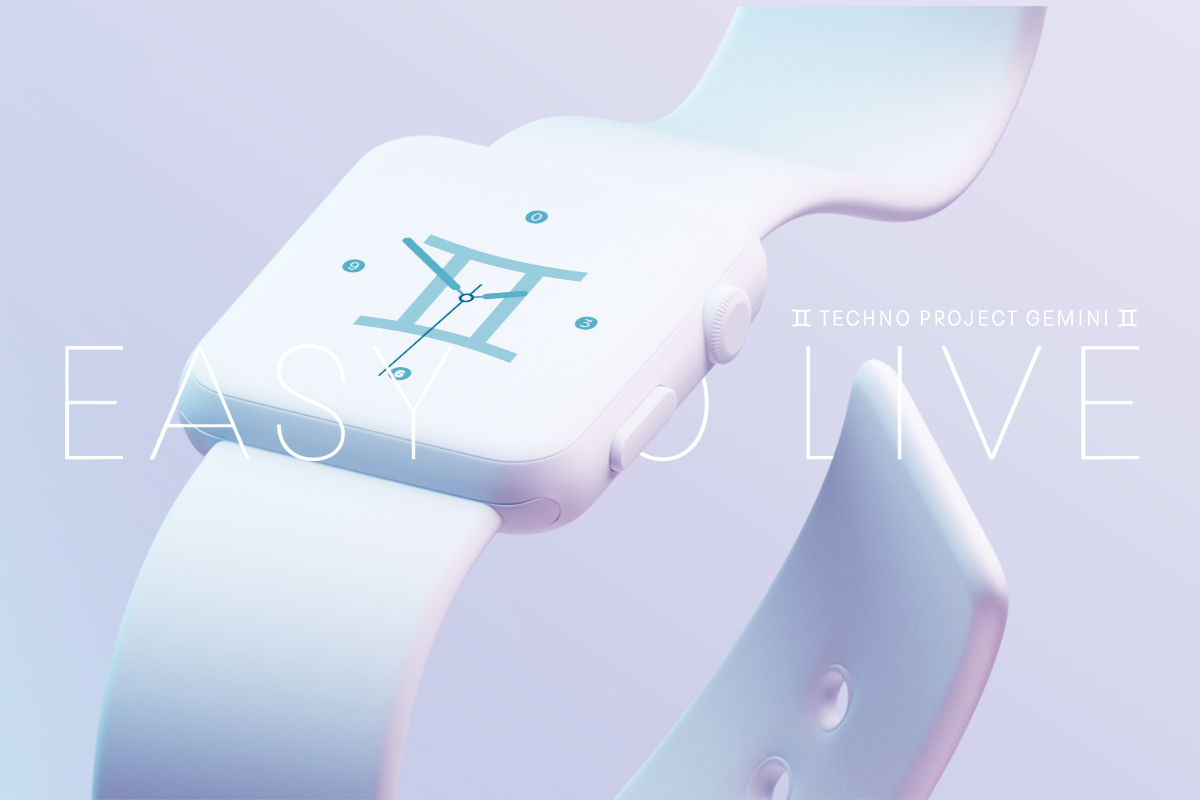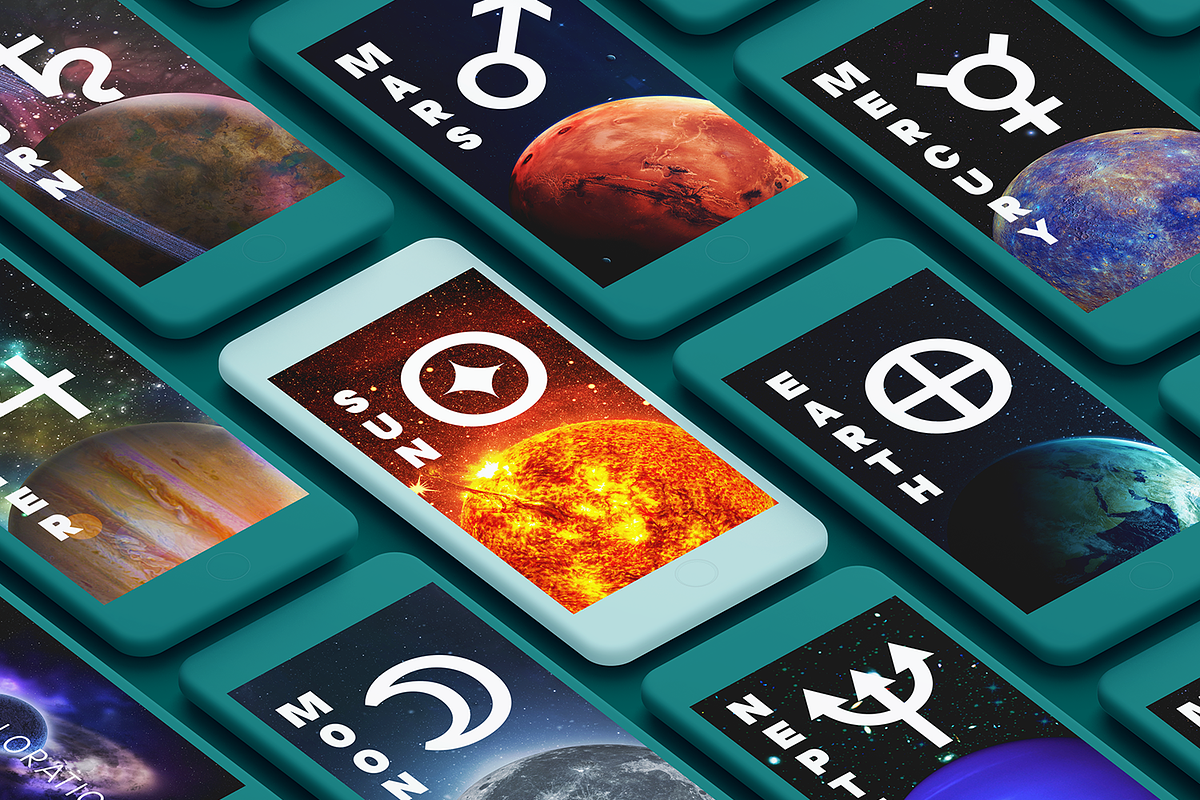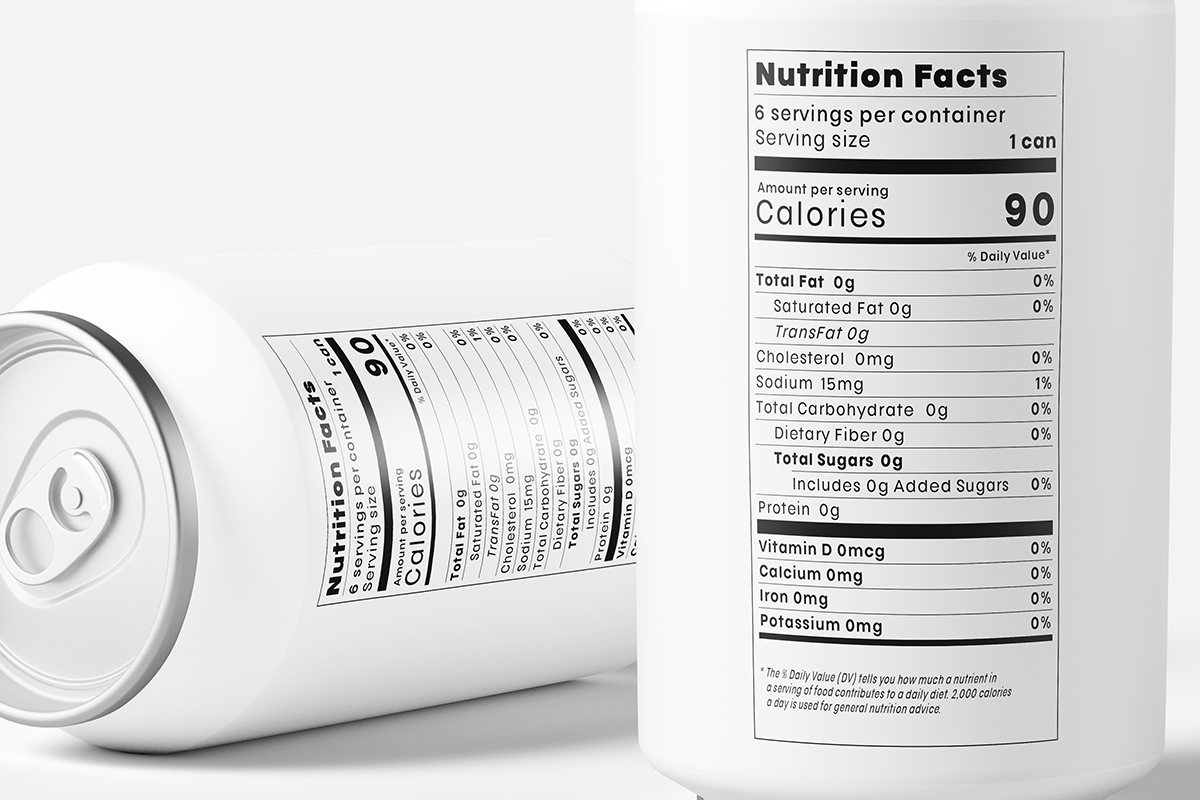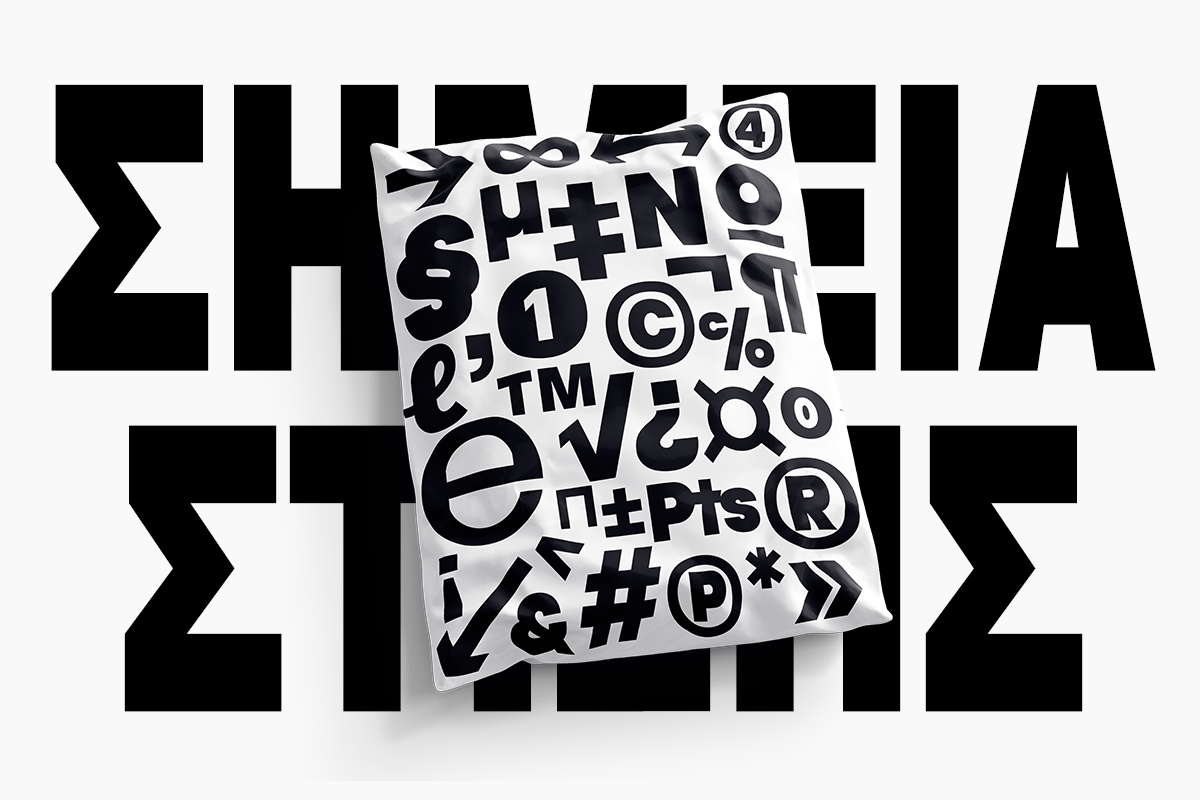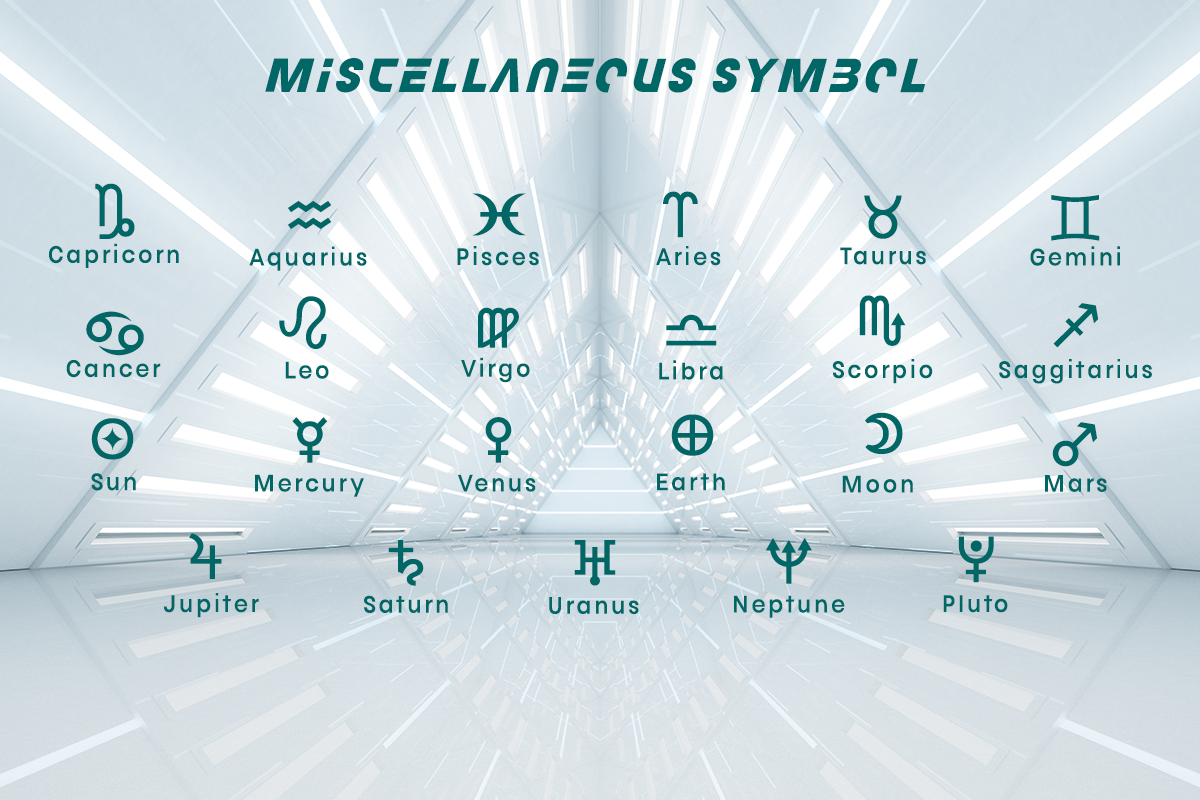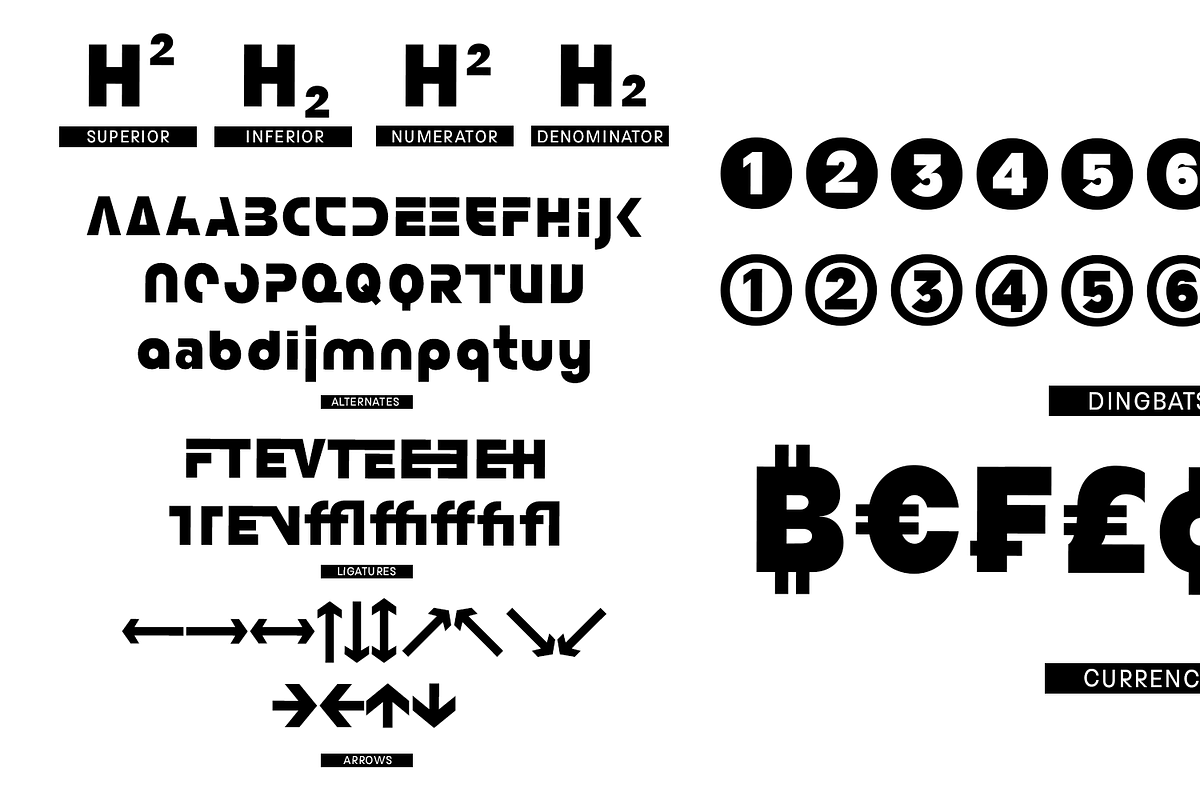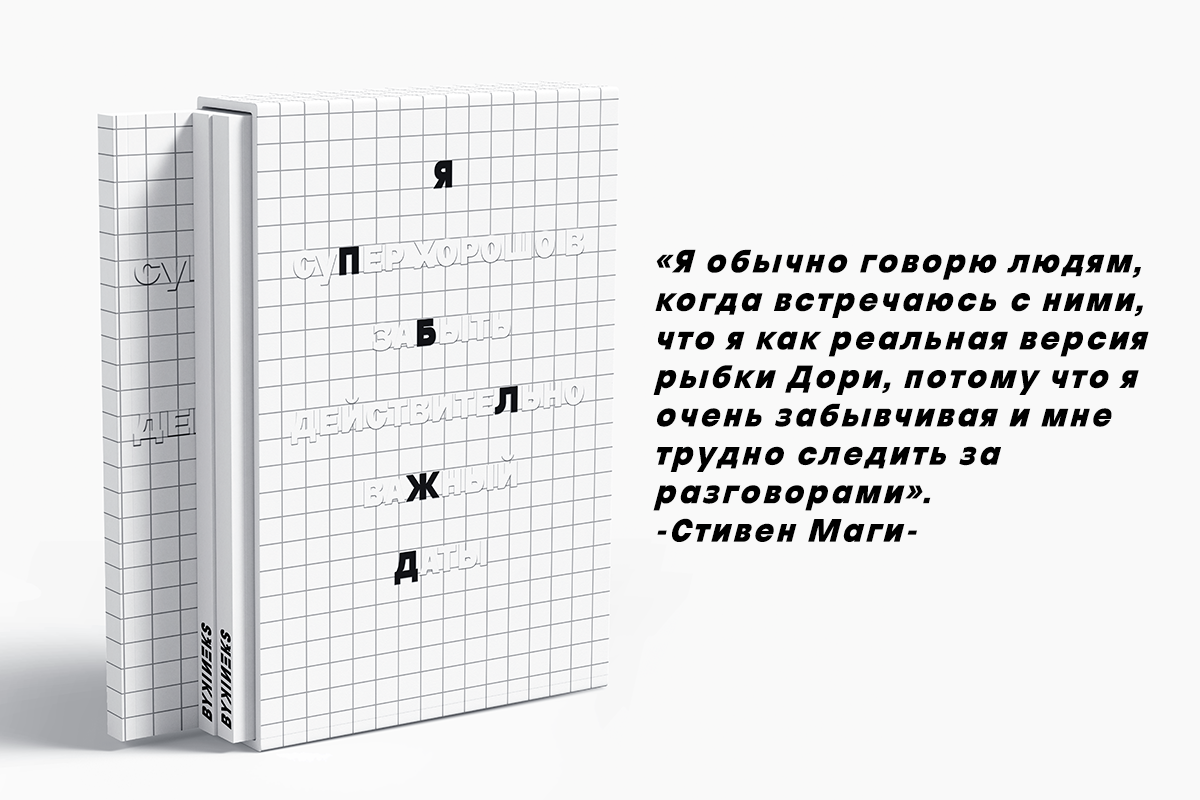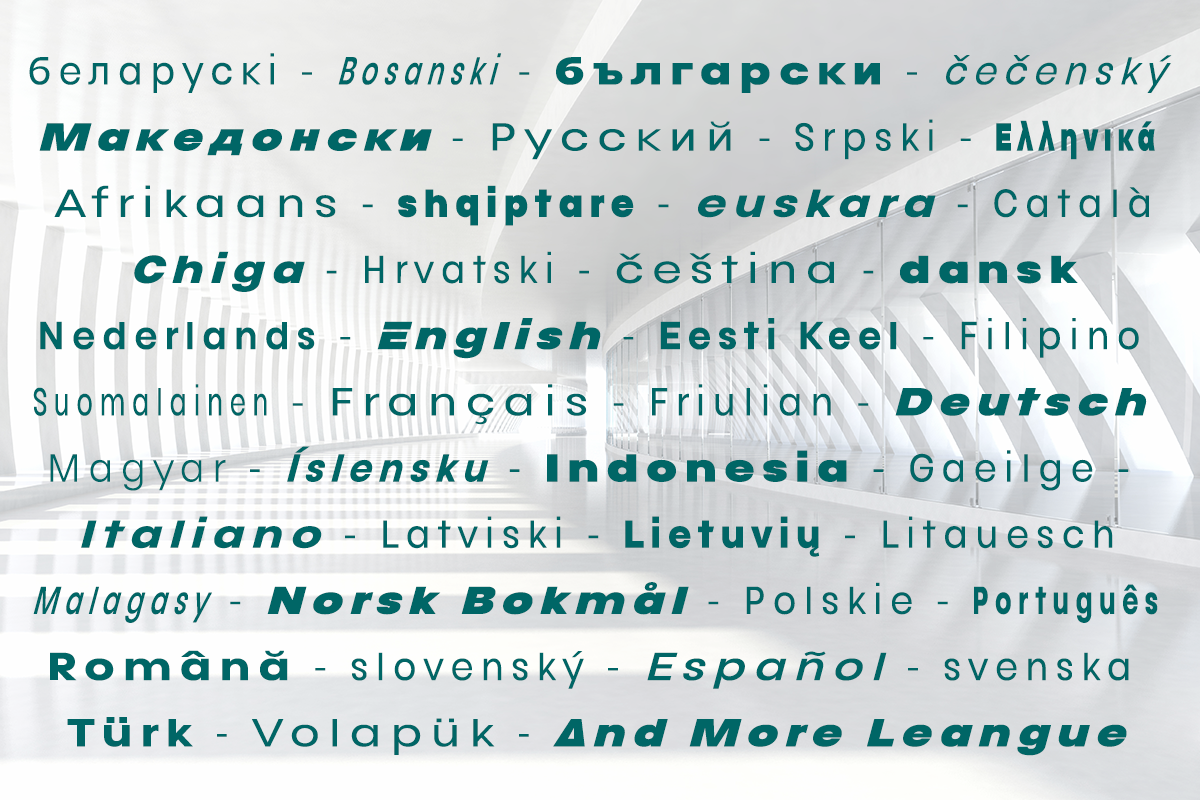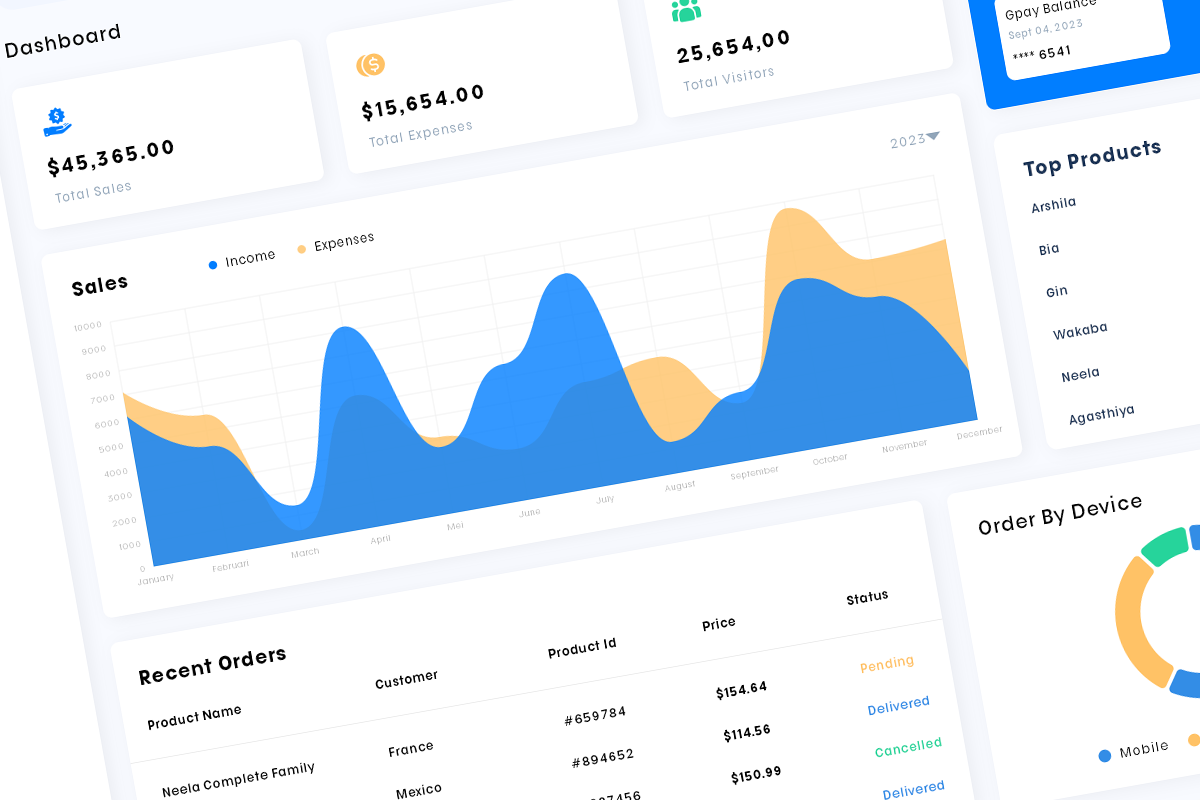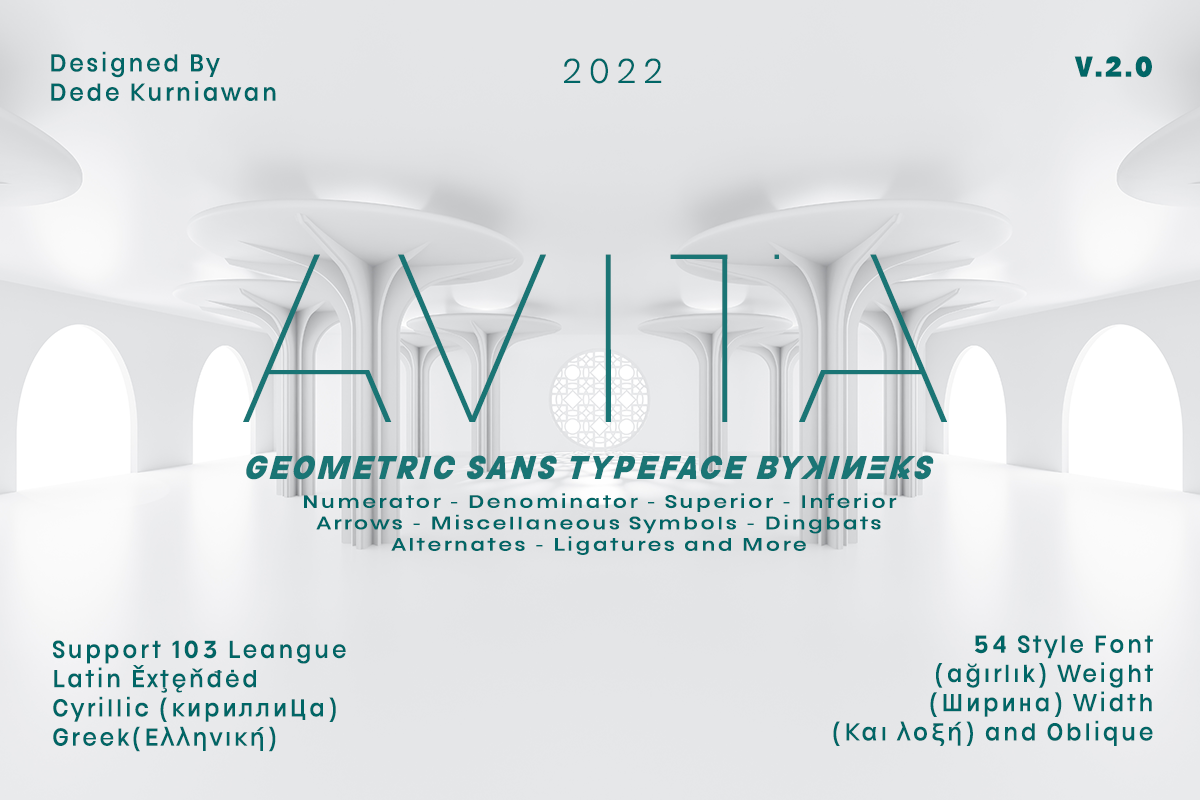
Avita | Geometric Sans Typeface
The first version was created in 2022, Avita was again revised and improved in V.2.0 in 2024, reborn with sharper sharpness and a cosmic gaze. This geometric sans serif is not just a font; he is more than that, weaving clean forms into a dance of precision and imagination. The tall x-height and playful ascender ensure it fits perfectly into any design in its 54 styles, whispering a subtle secret or a bold statement as your design demands.
Don't be limited by the ordinary. Avita embraces the future, whether it's sleek sci-fi, minimalist style, or the unexpected charm of a skincare brand. Let Avita speak to the world in 103 languages, including Cyrillic and Greek, or reach for the stars with special astrological and astronomical glyphs. Unleash your typographic art with an arsenal of OpenType alternatives, ligatures, fractions, arrows, and more.
It's not just a font; this is the sculpting tool for your wildest design dreams. Avita's clean lines and limitless versatility are an invitation to push boundaries, elevate your vision, and let your creativity soar.